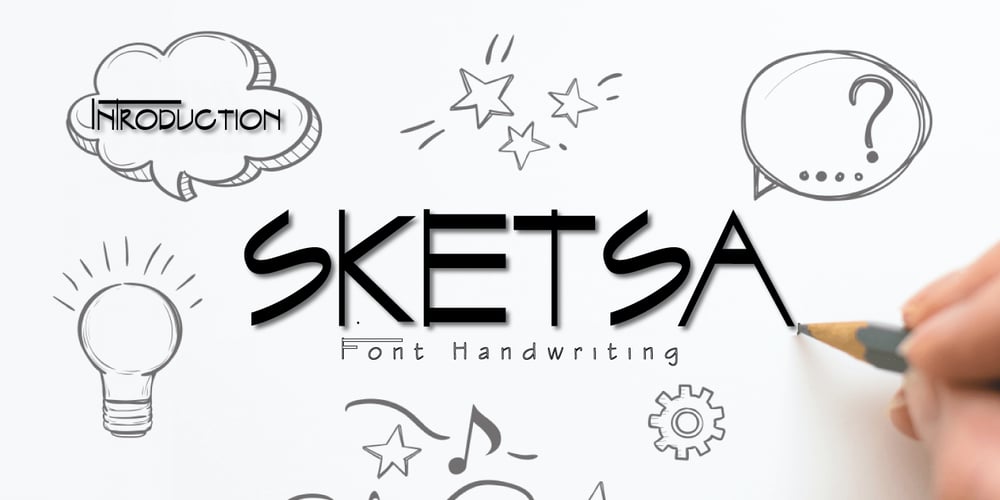
Sketsa Font Family was designed by Fauzul Azmi and published by PojolType. Sketsa contains 1 styles and family package options. I design this Sketch font from my own handwriting. I was inspired by Sketch Writing when I designed buildings.Fond This can be used in writing books. titles of books, magazines, clothes and can also be used as branding.You can choose several alternative capital letters and ligatures according to your wishes in writing your writing form. Thanks.